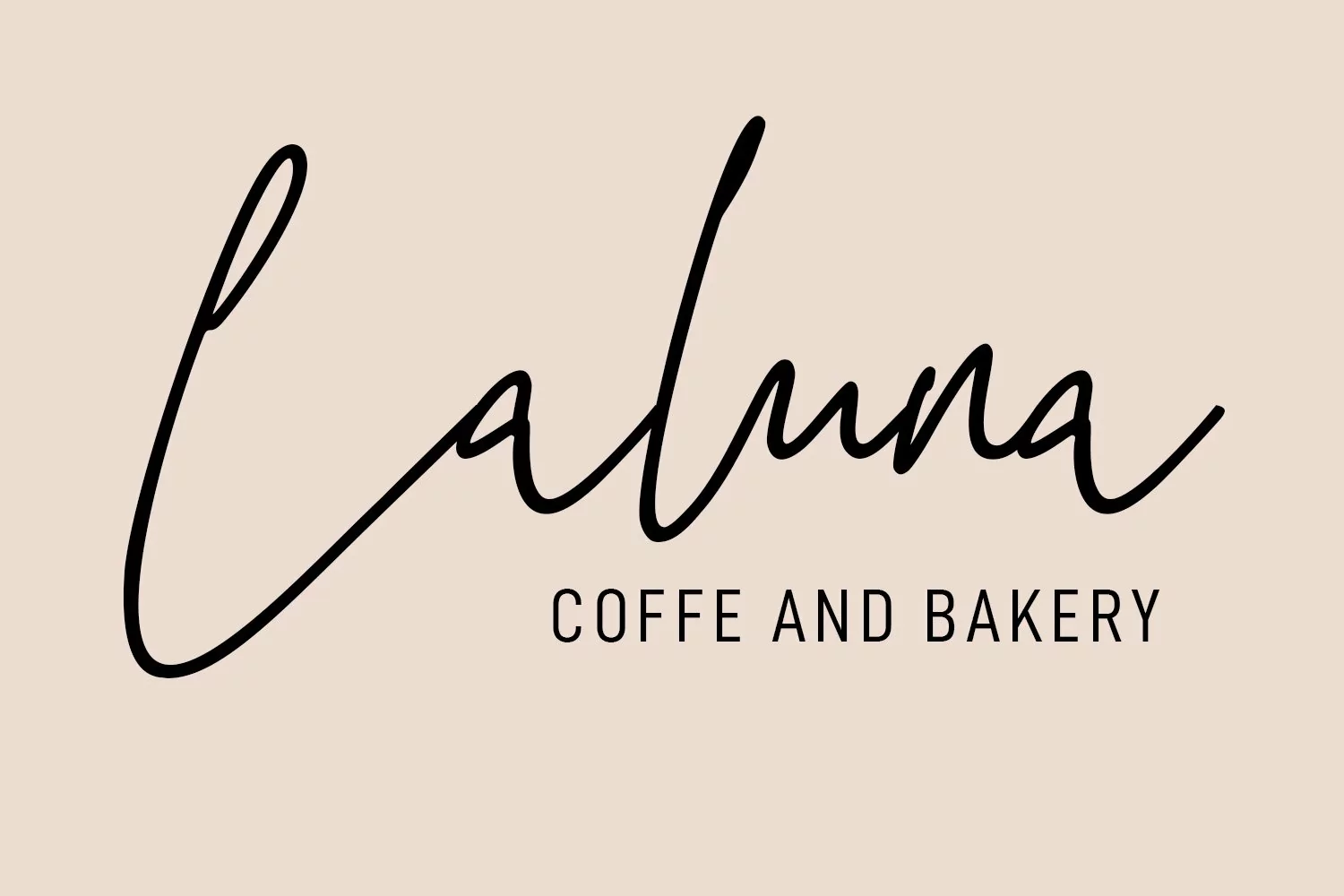
Geofly is a simply casual signature script font. With regular mono-line consist stroke, fun character with a bit of ligatures. To give you an extra creative work. Geofly font support multilingual more than 100+ language. This font is good for logo design, Social media, Movie Titles, Books Titles, a short text even a long text letter and good for your secondary text font with sans or serif. Make a stunning work with Geofly font.